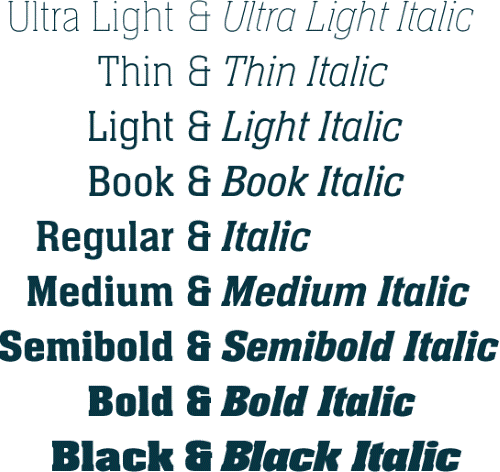
Neue Aachen Pro Font Family
Impressed by the quality of the Aachen typeface that was originally designed for
Letraset in 1969 and extended to include Aachen Medium in 1977,
Jim Wasco of Monotype Imaging has extended this robust display design to create an entire family.